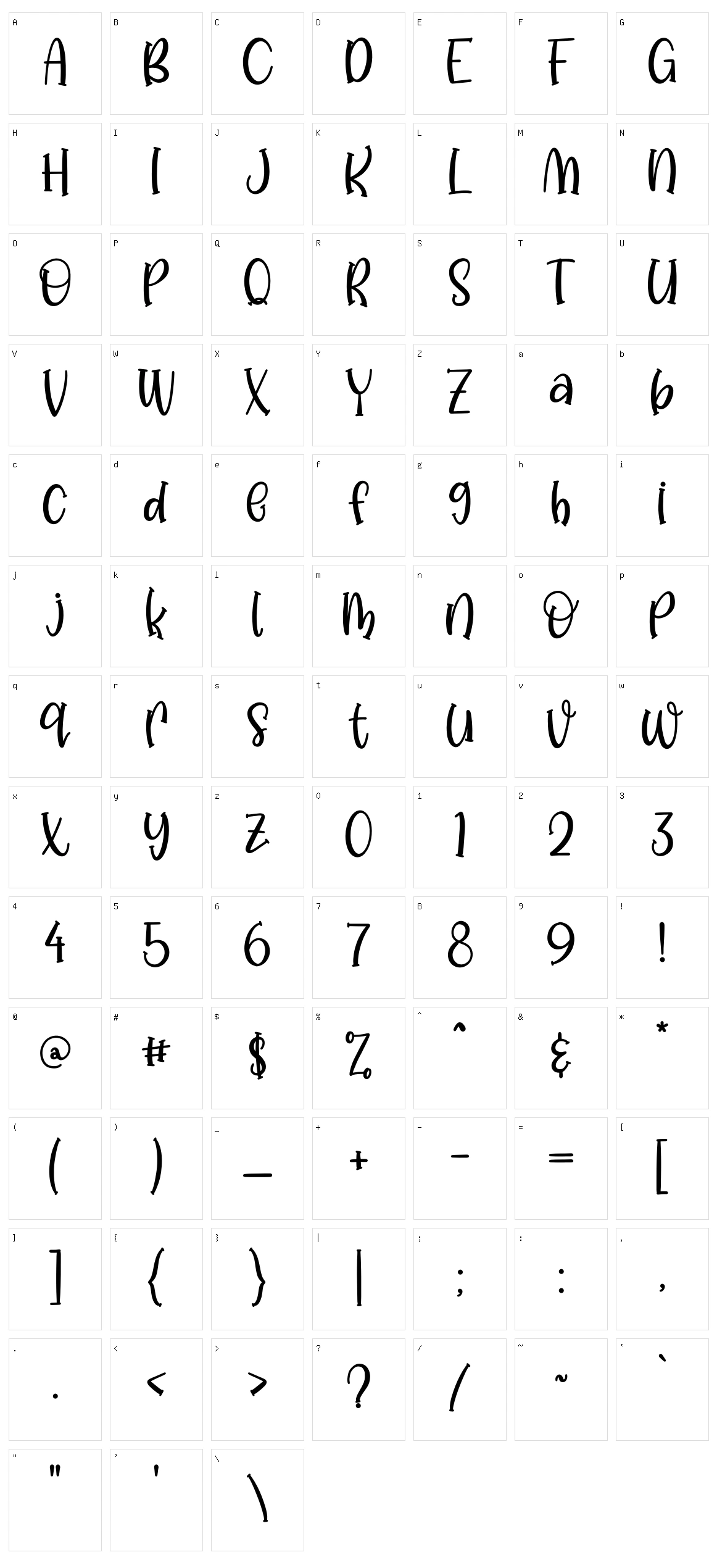
The free font Lemon Delight is carefully designed by Perspectype Studio - Letterena.com, showcasing a thoughtful balance of creativity and usability and falls under the Cartoon font style. When you download the ZIP file, it contains only 56.74 KB of font files, making it lightweight and quick to download. Please review the license details below to understand permitted usage and distribution rights. If license information is not available, we recommend using this font for personal projects only or contacting the author directly for commercial usage permissions.